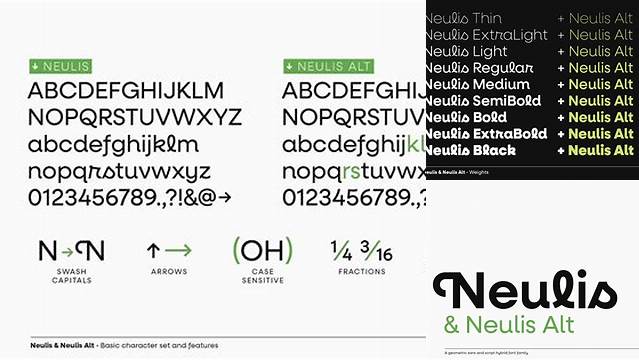
Neulis Font: Free Download & Usage Guide
Hey guys! Looking for a clean and modern font for your next project? You've probably heard of Neulis! This guide covers everything you need to know about Neulis font, including where to find a free Neulis font download and how to use it effectively. Let's dive in!
Neulis Font: An Overview
Before we jump into the free Neulis font download, let's talk about what makes this font so popular. Neulis font is known for its clean lines, modern aesthetic, and versatility. Whether you're designing a website, creating marketing materials, or working on a branding project, Neulis can be a great choice. It's a sans-serif font, which means it doesn't have those little decorative strokes (serifs) that you see on fonts like Times New Roman. This gives it a more contemporary and minimalist feel, perfect for today's design trends. Think of it as the Swiss Army knife of fonts – it can do a little bit of everything well. Its readability is also a major plus, making it suitable for both headlines and body text. So, if you're aiming for a look that's both stylish and functional, Neulis is definitely worth considering.
Using Neulis Font in Web Design
Okay, web designers, listen up! Neulis font can be a fantastic choice for your website projects. Its clean and modern look can enhance the user experience and make your site look more professional. To use Neulis in your web design, you'll first need to upload the font files to your server. Then, you can use CSS to specify Neulis as the font-family for your text elements. Here's a basic example:
Make sure to include fallback fonts (like sans-serif) in case Neulis doesn't load properly. You can also use CSS font-weight and font-style properties to customize the appearance of the font. For example, you can make headings bold or italicize body text. Just remember to optimize your font files for the web to ensure fast loading times. Tools like Font Squirrel's Webfont Generator can help you create optimized web fonts from your free Neulis font download. With a little bit of CSS magic, you can make Neulis shine on your website!
Neulis Font Alternatives
Sometimes, you might not be able to find a free Neulis font download or the licensing might not work for your project. In that case, it's good to have some alternatives in mind. Similar fonts like Montserrat, Lato, and Open Sans offer a similar clean and modern aesthetic. These fonts are also sans-serif and highly versatile, making them great replacements for Neulis font. Montserrat has a slightly more geometric feel, while Lato is a bit warmer and friendlier. Open Sans is known for its excellent readability on screens. All three of these fonts are available for free download from Google Fonts, making them easy to use in your web projects. So, if you're looking for a Neulis font alternative, give these a try!
Neulis Font Pairing Guide
Choosing the right font pairing can make or break your design. Neulis font is quite versatile, but it's important to pair it with a font that complements its clean and modern look. For headings, you could pair Neulis with a bolder sans-serif font like Bebas Neue or Montserrat Extra Bold. This will create a nice contrast and make your headings stand out. For body text, consider pairing Neulis with a more readable serif font like Merriweather or Lora. The contrast between the sans-serif and serif fonts will improve readability and add visual interest to your design. Another great option is to pair Neulis with itself, using different weights and styles to create hierarchy. For example, you could use Neulis Bold for headings and Neulis Regular for body text. Experiment with different font pairings to find what works best for your project. Remember, the goal is to create a harmonious and balanced design that's easy on the eyes.
Conclusion: Is Neulis Font Right for You?
So, is Neulis font the right choice for your project? Ultimately, that depends on your specific needs and goals. If you're looking for a clean, modern font that's easy to read and versatile, then Neulis is definitely worth considering. Its simplicity and clarity make it a great choice for a wide range of applications, from web design to branding to print. However, it's important to consider the context and audience when choosing a font, and make sure that Neulis font is the right fit for your project. If you're not sure, experiment with different fonts and see what works best. The most important thing is to choose a font that helps you communicate your message effectively and create a design that's both visually appealing and engaging.